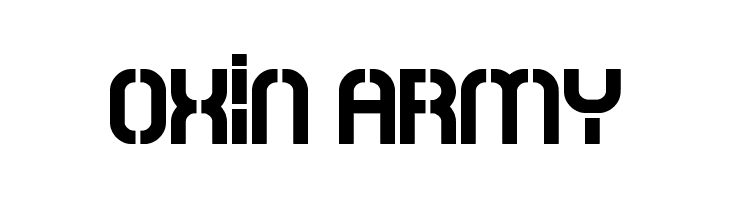
A bold, stencil-style font with a military and industrial feel.
A bold, geometric font with a military-inspired, stencil-like design.
A bold, stencil-style font with strong, thick strokes and distinct cutouts.
A bold, geometric font with an industrial, stencil-like appearance.
A bold, geometric stencil font with a modern, industrial feel.